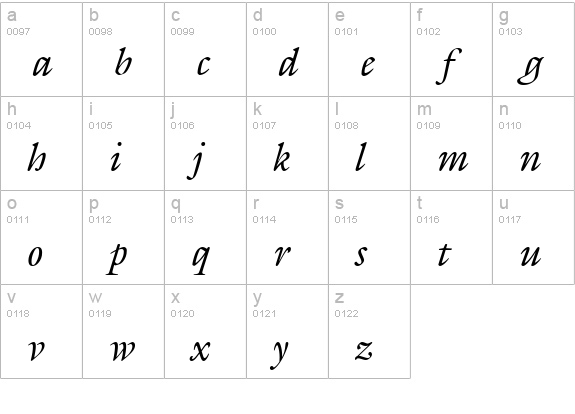
Gareth-Italic is a distinctive, italic variant in the Gareth typeface family \xE2\x80\x94 well suited to design and typography projects.
Gareth-Italic font exudes elegance and sophistication with its sleek and stylish design. The slanted italic style adds a touch of flair to any text, making it perfect for projects that require a more refined look. Whether you're designing invitations, posters, or logos, Gareth-Italic font will elevate your work to the next level. Best of all, Gareth-Italic font is completely free to download at FontsMarket.com. This means you can access this premium font without any cost, making it a fantastic option for designers on a budget. Don't miss out on the opportunity to enhance your projects with the timeless beauty of Gareth-Italic font - download it today and let your creativity soar.